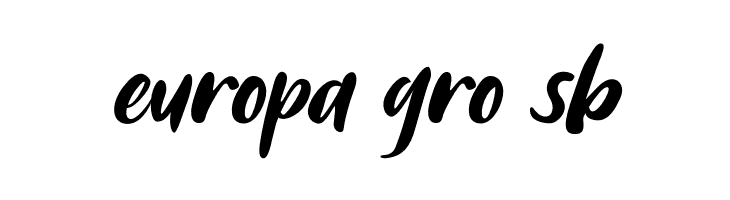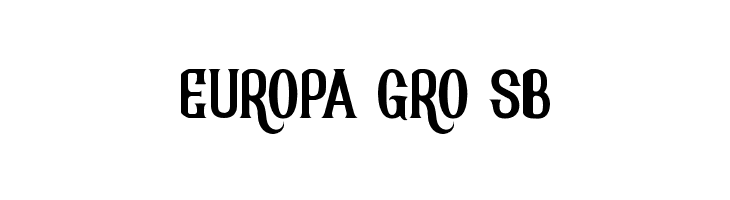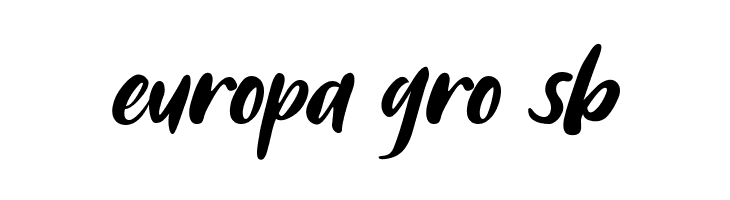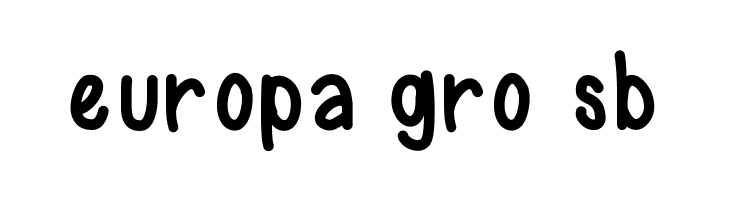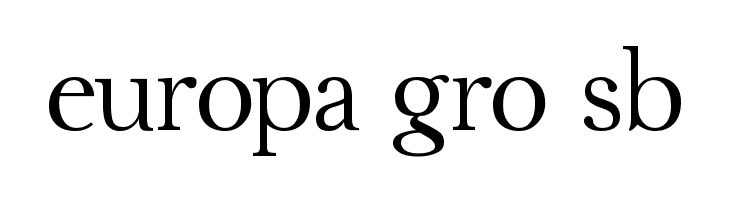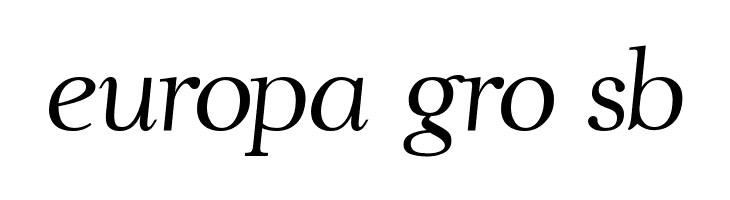
A classic serif font with elegant strokes and medium contrast.
An elegant italic font with smooth curves and balanced contrast.
A playful, handwritten font with bold, rounded strokes and a casual flair.
A bold, decorative font with a vintage flair and unique serifs.
A bold, expressive handwritten font with fluid, dynamic strokes.
A bold, dynamic script font with a handwritten feel.